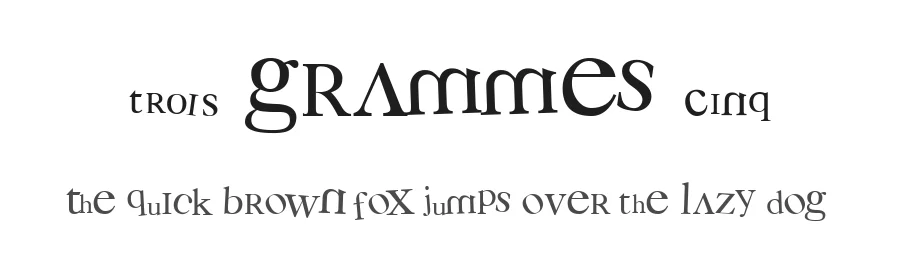
About Fantaisie Artistique Font
Fantaisie Artistique is a decorative font designed by George Williams. It includes 187 glyphs, a regular weight, TTF (TrueType) format, and 210 languages. Fantaisie Artistique is free to download; check the license details on this page before commercial use. Decorative fonts like Fantaisie Artistique work best for logos, posters, packaging, and standout headlines.
Fantaisie Artistique Font is a decorative font that shines as a display or heading face. Pair it with a clean sans-serif or serif font for body text β the contrast creates a clear hierarchy while the two styles stay balanced and easy to read.
Fantaisie Artistique Font
Fantaisie Artistique Font is a decorative typeface by George Williams, ideal for logos, invitations, branding, and creative projects.